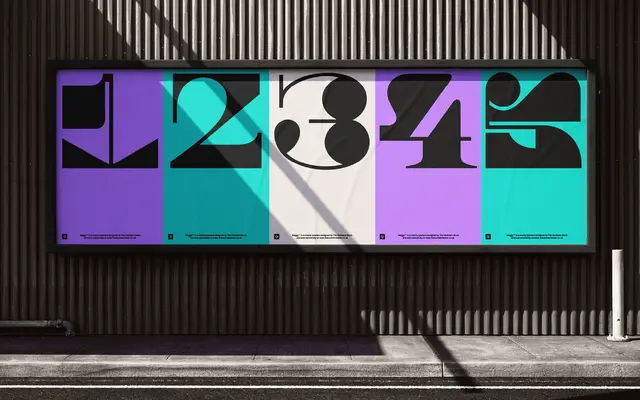
A single-weight experimental display typeface grown from a 36 Days of Type challenge, sold in aid of Maggie's cancer charity.
Developed during the annual 36 Days of Type event, Maggy is an experimental display face with a deliberately unconventional character. The single font contains over 310 glyphs with six stylistic sets, proportional and tabular figures, and Latin coverage across Western, Southern and Central Europe. All proceeds go to Maggie's cancer charity, making the purchase itself part of the typeface's stated purpose.
Described explicitly as a display typeface, originating from the 36 Days of Type challenge, with experimental and unconventional letterform design as its defining character.